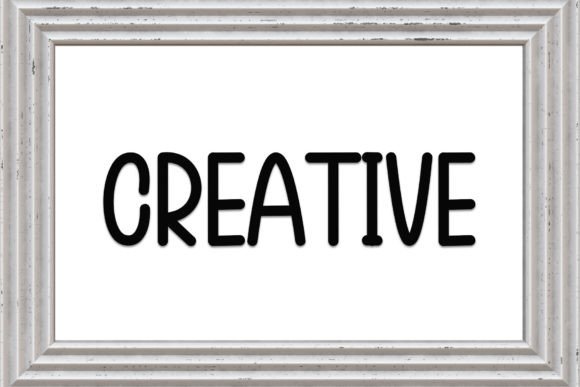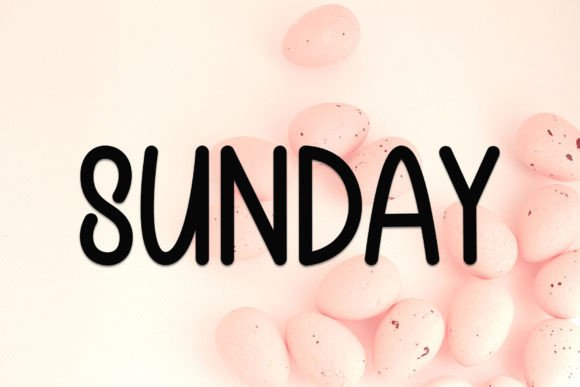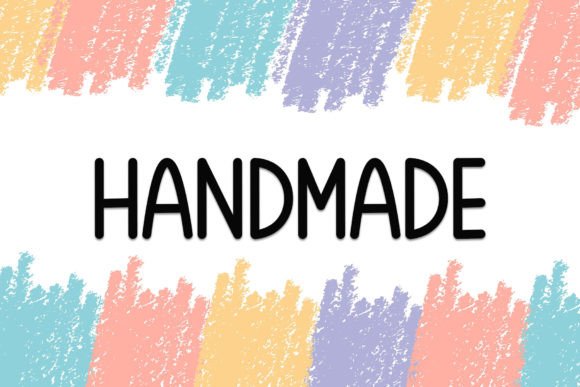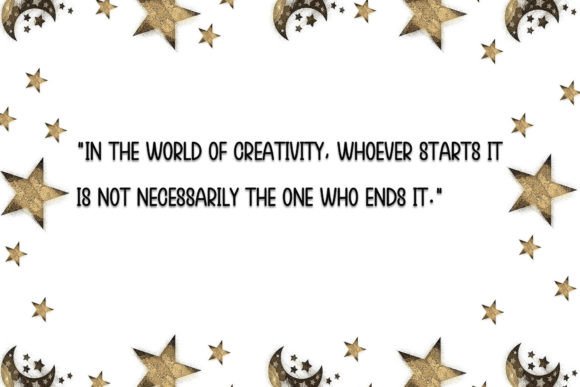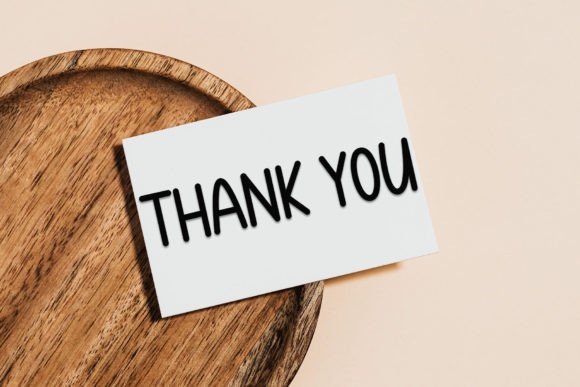
The Perfect Companion for Your Creative Projects
Have you ever stumbled upon an idea that sparks your creativity, and you can’t wait to bring it to life? For designers, these moments are what drive us to create something truly special. It’s the thrill of combining the right elements to form a masterpiece that leaves a lasting impression.
One such element that can elevate your designs is the Beagle Font, a beautiful handwritten font that adds an elegant touch to any project. Perfect for Fall, this font is a timeless treasure that can be used to create spectacular designs. With its distinct style, it’s no wonder why designers have fallen in love with it. Whether you’re working on a new logo, a marketing campaign, or a personal project, the Beagle Font is an invaluable asset to have in your design arsenal.
Beagle Font Key Features
- Font Family: Beagle Font is a sans-serif font family designed for digital use.
- Unique Characteristics: Beagle Font features a clean and modern design, with a distinctive x-height and geometric shapes, making it highly legible and versatile.
- Language Support: Supports multiple languages, including Latin, Cyrillic, and Greek scripts, making it a great choice for global design projects.
Beagle Font Review
As a designer, I was excited to try out the Beagle Font. Here’s my honest review.
- The Beagle Font has a unique, playful feel that’s perfect for creative projects.
- The font’s rounded edges and friendly curves make it approachable and easy to read.
- The font is highly customizable, allowing you to adjust its weight, spacing, and other properties to suit your needs.
- The Beagle Font is highly legible, even at small font sizes, making it suitable for a wide range of applications.
- The Beagle Font may not be suitable for formal or professional projects, as its playful feel may come across as unprofessional.
- The font’s rounded edges and curves may not be ideal for projects that require a lot of text, as they can make the text appear cluttered or difficult to read.
The Beagle Font is a great choice for designers looking for a unique and playful font. While it may have some limitations, its high level of customizability and legibility make it a solid choice for a wide range of projects.
Getting the Most Out of Beagle Font
To get the most out of Beagle Font, try the following tips:
- Experiment with different font sizes and styles to create a visually appealing design.
- Combine Beagle Font with other fonts to create a unique and eye-catching look.
- Use Beagle Font for headings and titles to add a touch of whimsy and personality to your design.
Beagle Font is perfect for:
- Children’s book illustrations and design.
- Playful and creative advertising campaigns.
Alternatives to Beagle Font for Designers
Playfair Display is a luxurious and elegant serif font, ideal for use in headings and titles. It features intricate details and a high level of sophistication, making it perfect for high-end branding, luxury products, and formal events.
Compared to Beagle Font, Playfair Display is more formal and less playful, but shares a similar level of sophistication and elegance. While Beagle Font is more versatile and suitable for a wider range of designs, Playfair Display excels in creating a sense of luxury and refinement.
Great Vibes is a modern and stylish script font, ideal for use in branding, logos, and titles. It features a unique and dynamic feel, making it perfect for creating a sense of energy and movement.
Compared to Beagle Font, Great Vibes is more dynamic and expressive, but less versatile and suitable for a wider range of designs. While Beagle Font is more laid-back and easy-going, Great Vibes excels in creating a sense of excitement and playfulness.
Montserrat is a modern and sleek sans-serif font, ideal for use in body text and titles. It features a clean and minimalist design, making it perfect for creating a sense of simplicity and clarity.